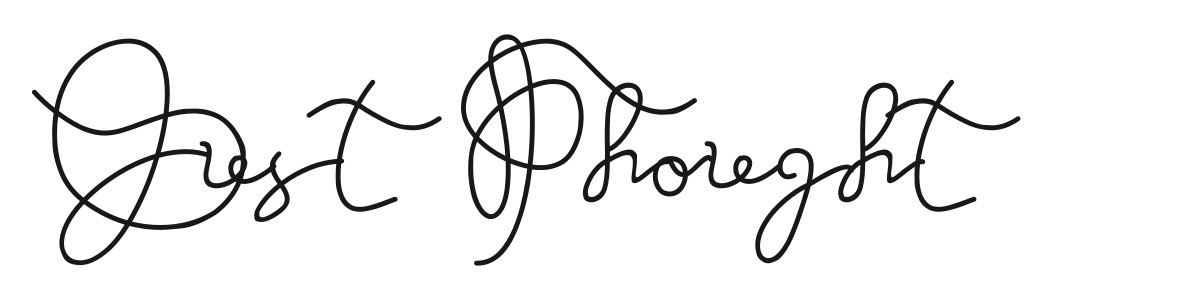
Just Thought
Just Thought is a light, flowing casual script with connected looping strokes and an organic handwritten feel. Letters dance along an undulating baseline with long sweeping ascenders and descenders that weave into each other naturally. It brings a relaxed, personal energy to branding, invitations, and lifestyle packaging.